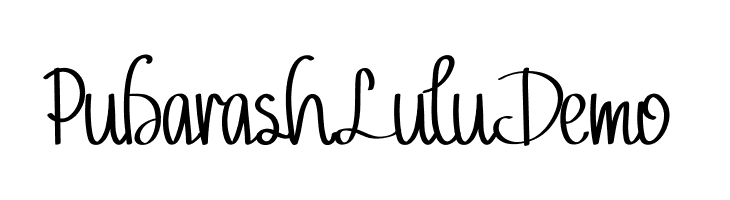
A playful, hand-drawn script font with flowing, cursive uppercase and rounded lowercase letters.
A playful and whimsical script font with flowing, interconnected letters and a modern calligraphic style.